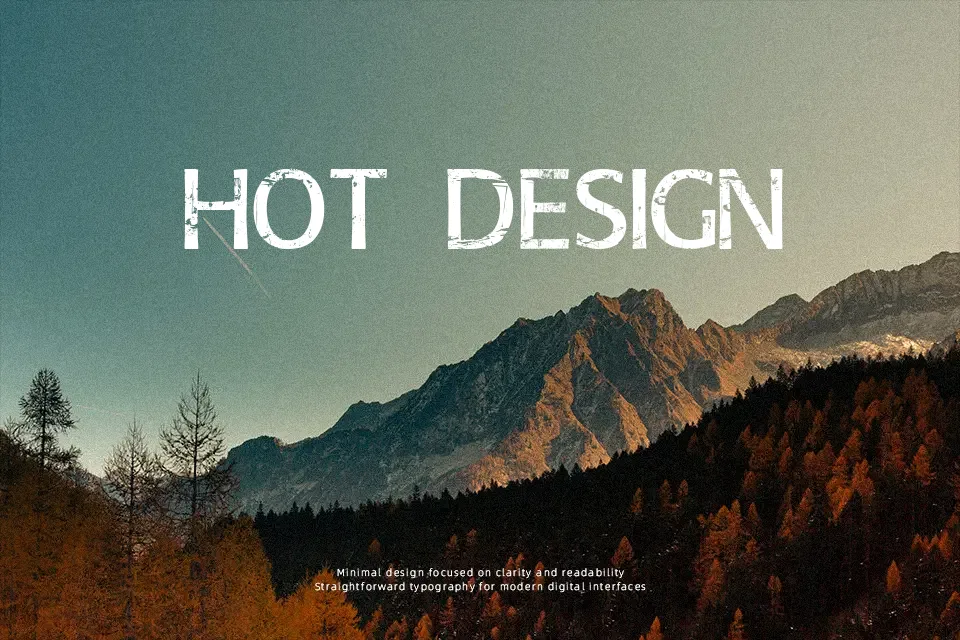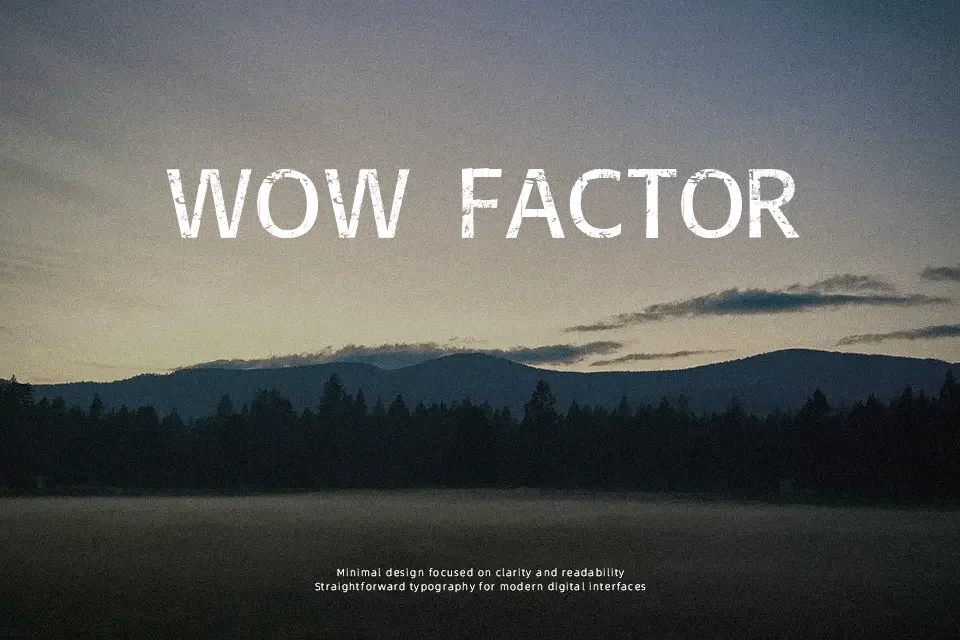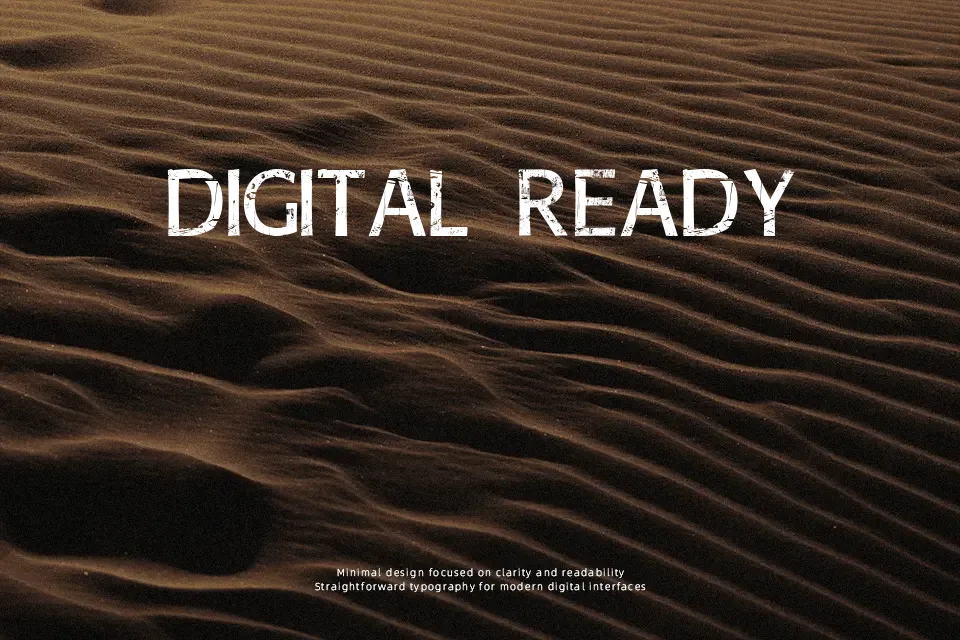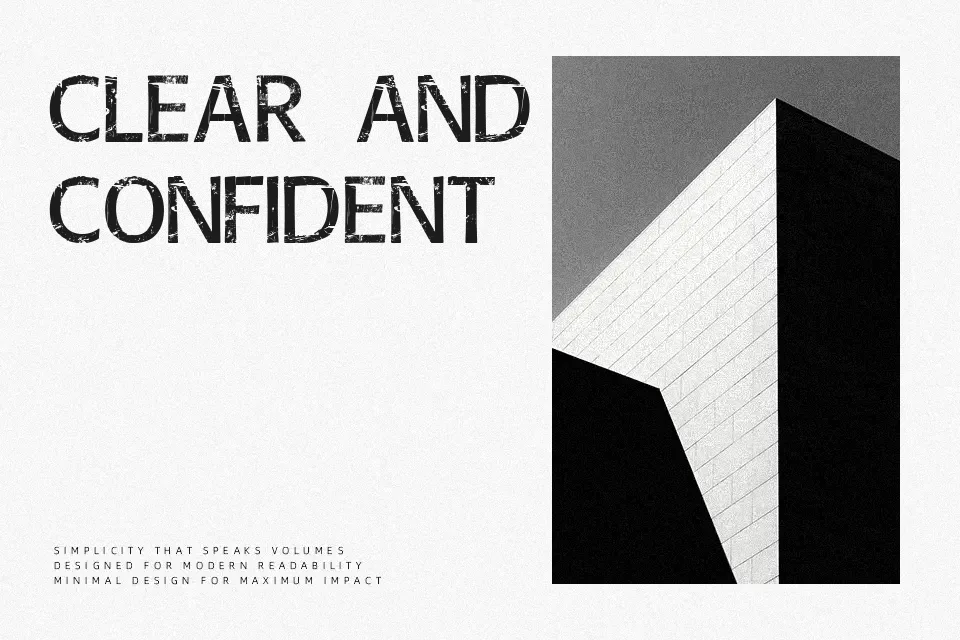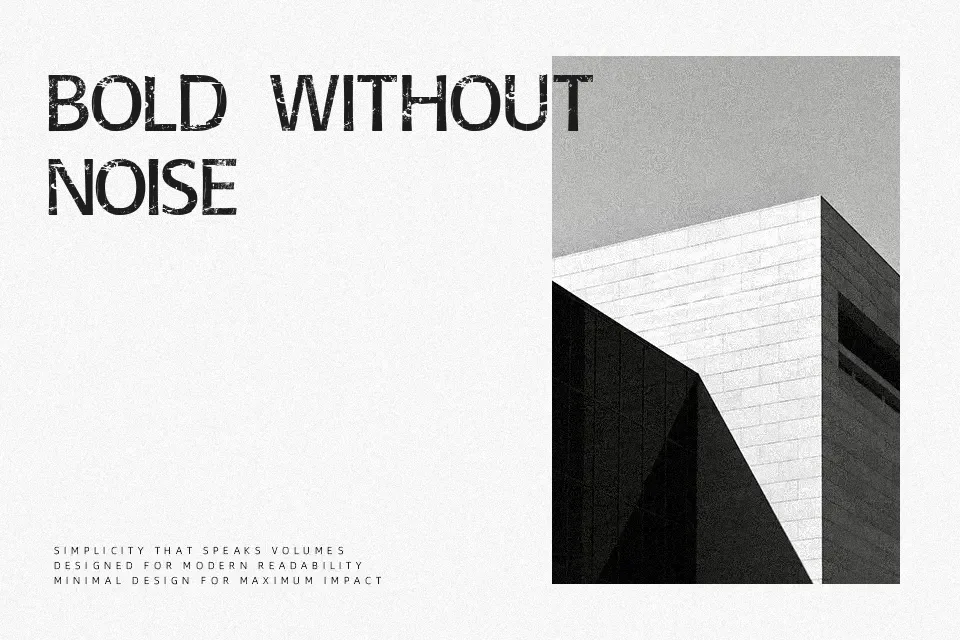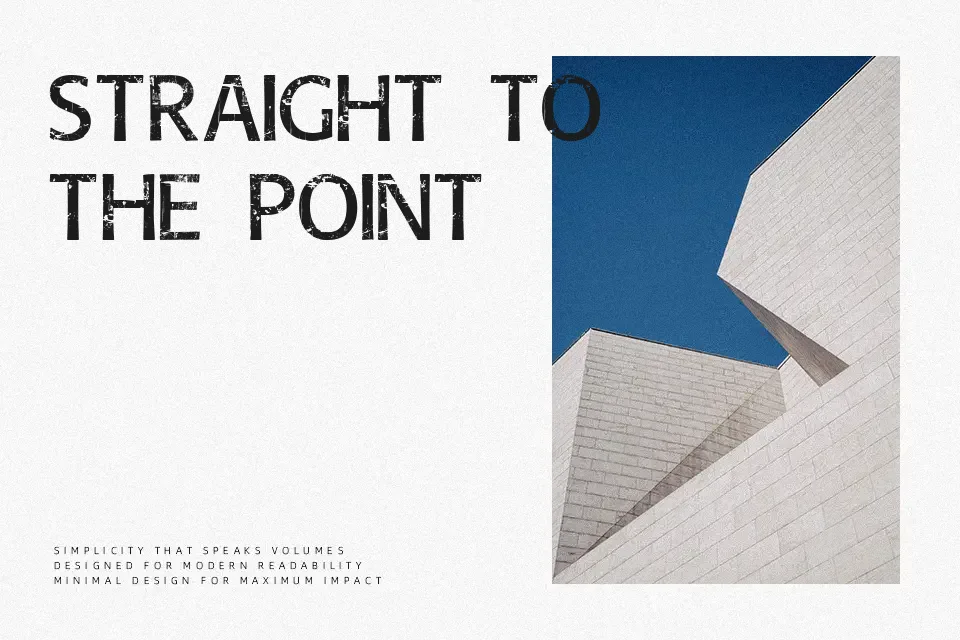
Overhaul Font
Overhaul Font uses solid sans serif letterforms interrupted by irregular worn patches across the strokes. Its uppercase and lowercase characters retain a generally consistent structure, while the distressed surface gives words a rough, weathered rhythm. The proportions appear moderately wide and the spacing remains practical for short lines, although the texture can make details feel crowded at reduced sizes. Numerals and common punctuation follow the same eroded treatment. This typeface reads most clearly in large headlines, labels, and graphic compositions; it is less comfortable for extended copy because the broken edges compete with the text itself.
industrial poster headlines,workwear apparel graphics,grunge music artwork,distressed product packaging
long paragraph text,small interface labels,legal documents,dense editorial layouts
Perfect for branding, headline, and music, with a bold and decorative style.